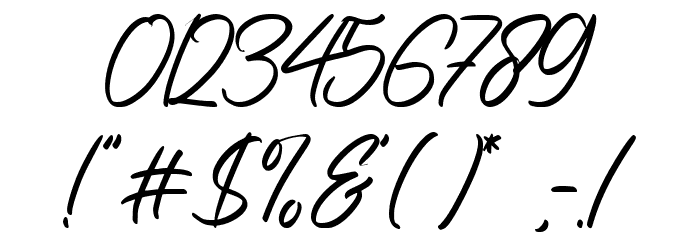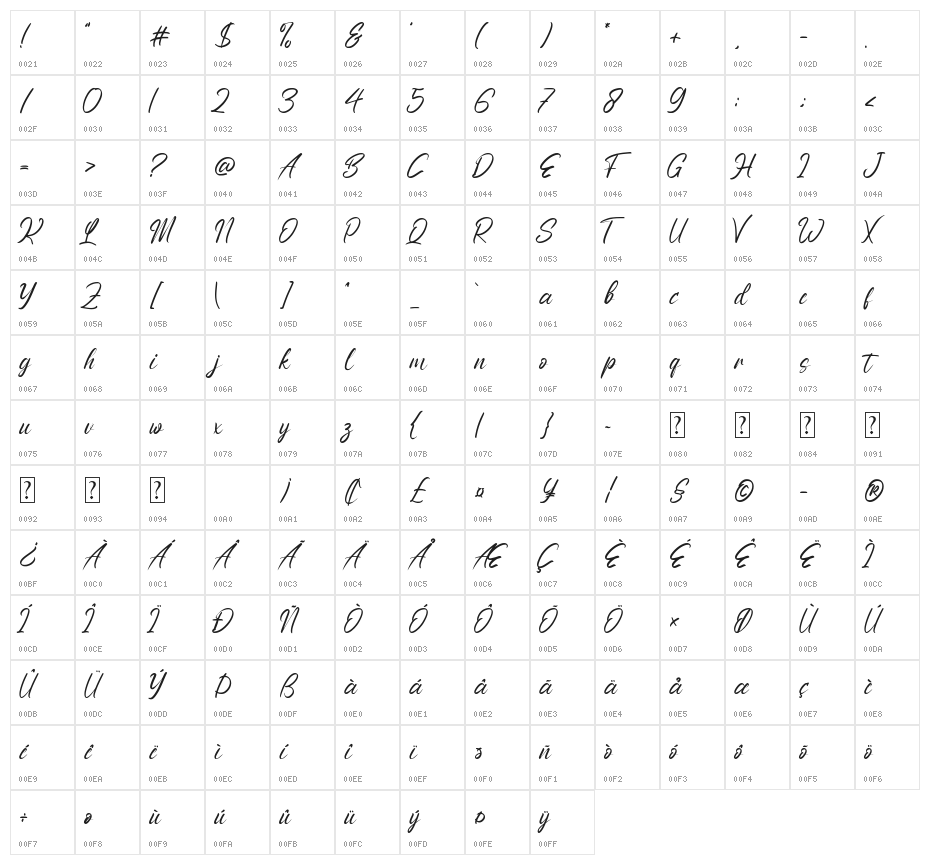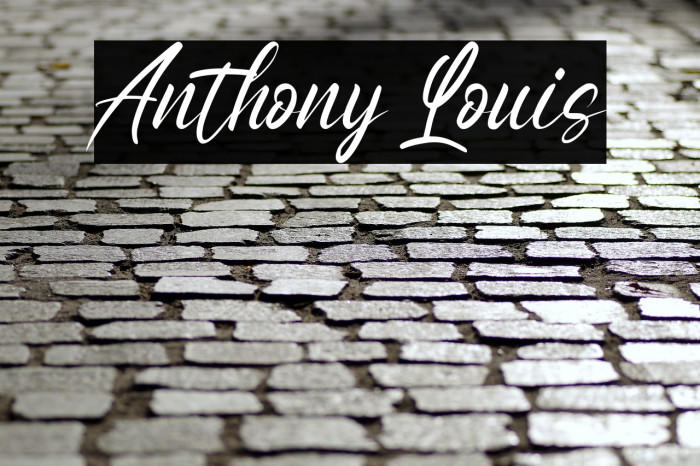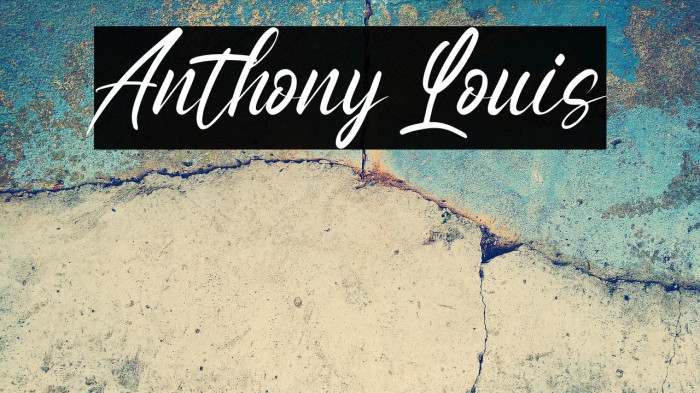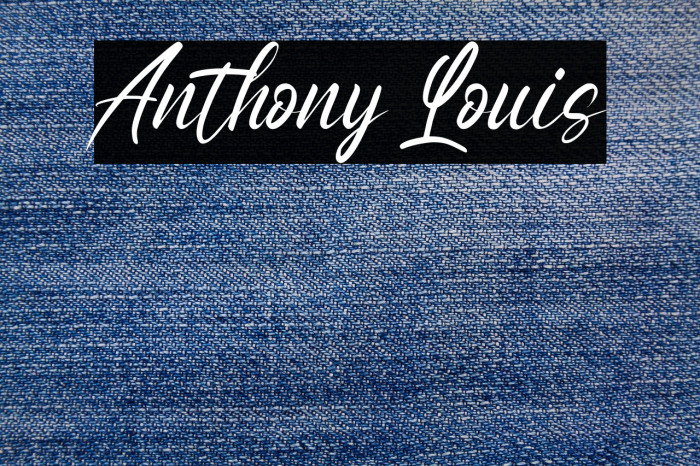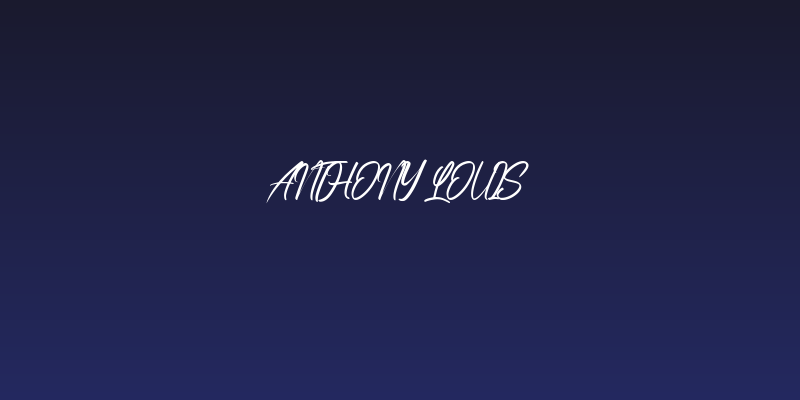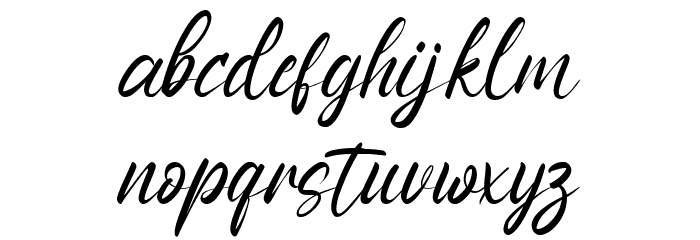
Anthony Louis Font
Anthony Louis Description
This elegant script font features a flowing, cursive style with a modern twist. The uppercase letters are bold and sweeping, with dramatic flourishes that give a sense of movement and grace. The lowercase letters maintain a consistent flow, connecting smoothly to create a harmonious look. The numerals are stylish and complement the overall aesthetic, while the special characters are crafted with the same attention to detail. This font exudes sophistication and is perfect for projects that require a touch of elegance and flair.